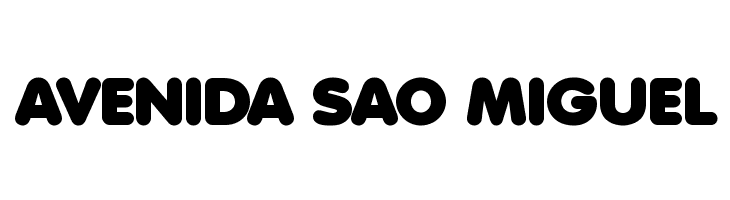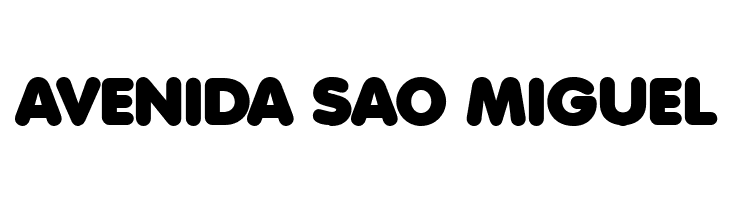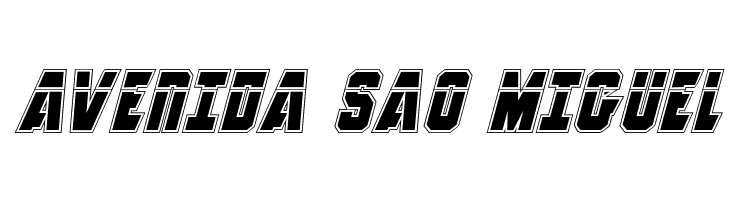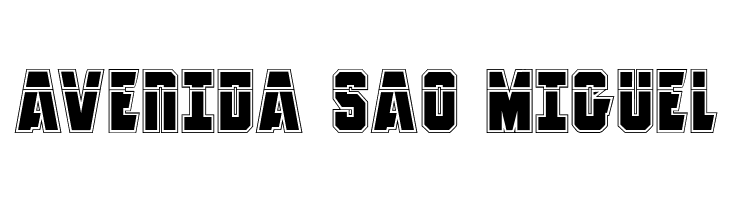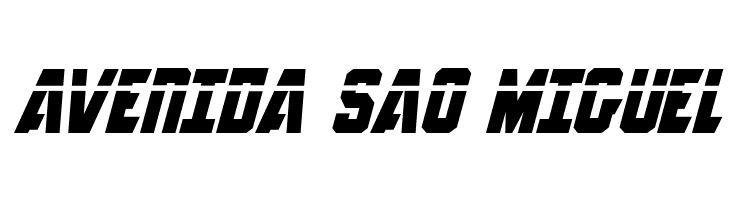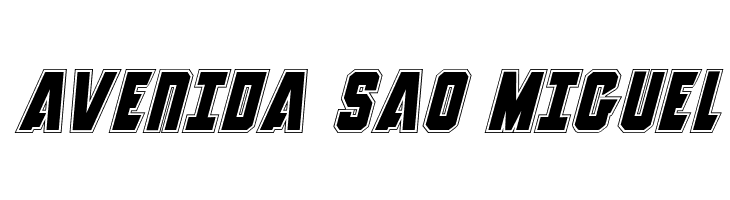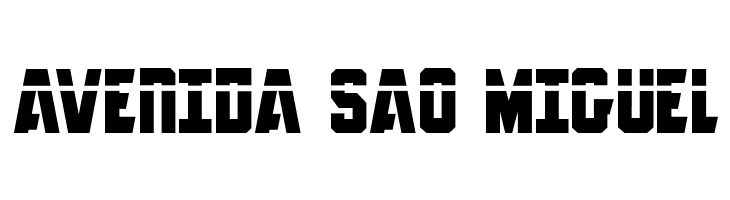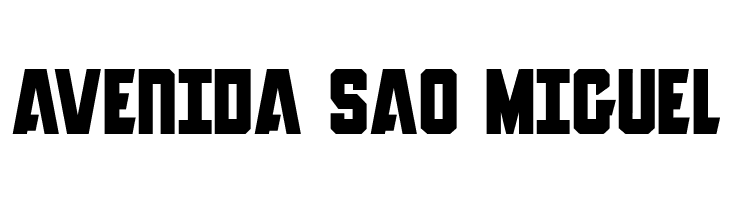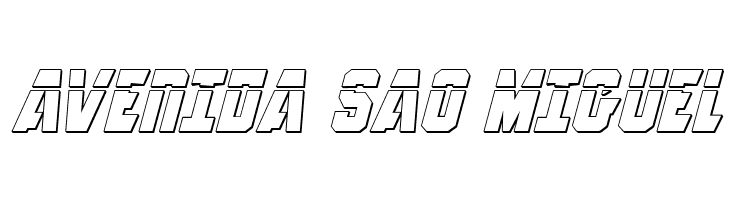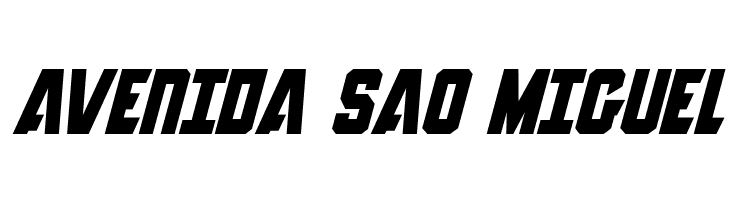
A bold, geometric font with strong, angular shapes ideal for impactful designs.
A bold, 3D outlined font with a geometric and angular style.
A bold, 3D italic font with a futuristic and dynamic style.
A bold, outlined font with a modern, geometric style.
A bold, italicized font with a dynamic, three-dimensional style.
A bold, geometric font with sharp edges and an expanded width.
A bold, italic, and dynamic font with sharp angles and a modern style.
A bold, italic font with a dynamic and angular design, perfect for impactful visuals.
A bold, 3D geometric font with a futuristic and industrial style.
A bold, italicized 3D font with a futuristic and dynamic style.
A bold, geometric font with a three-dimensional effect and strong outlines.
A bold, angular, and italicized font with a futuristic and dynamic style.
A bold, italicized font with a futuristic and angular design.
A bold, geometric font with high contrast and artistic design elements.
A modern, decorative font with bold and abstract design elements.
A dynamic and fluid script font with elegant, flowing strokes.
A cursive, flowing font with elegant, sweeping lines and artistic flair.
A tall, narrow handwritten font with a casual, informal style.
A handwritten font with a casual, organic style and tall, narrow uppercase letters.
A classic typewriter-style font with monospaced, slightly serifed characters.
A sophisticated script font with flowing, cursive characters and high contrast strokes.
A lively and flowing script font with elegant, interconnected letters.
A modern, elegant script font with intricate loops and smooth curves.
A whimsical, handwritten font with flowing, interconnected letters and dynamic strokes.
A modern, geometric sans-serif font with excellent readability.
A modern, geometric sans-serif font with smooth, rounded edges.
A graceful and elegant script font with fluid, cursive strokes.
A flowing, cursive script font with elegant, interconnected characters.
A flowing, elegant script font with interconnected cursive letters.
A playful, hollow font with rounded characters and a whimsical style.
A playful, thin handwritten font with a whimsical and casual style.